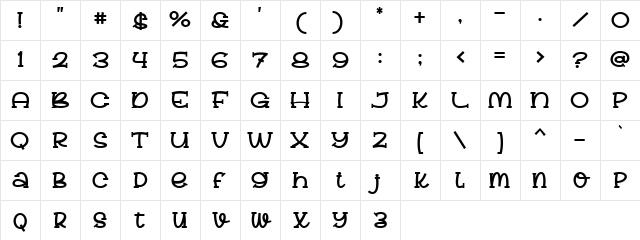
Brendy Berly Regular Free Font
Brendy Berly Regular
Foundry: Blankids Studio
Designer: Bangkit Tri Setiadi
Design Context for Brendy Berly
Brendy Berly is a composed and adaptable typeface that performs quietly and consistently across a wide range of design contexts.
Pro Tip: Use Brendy Berly in both headline and body roles to test its range before committing to a single application.